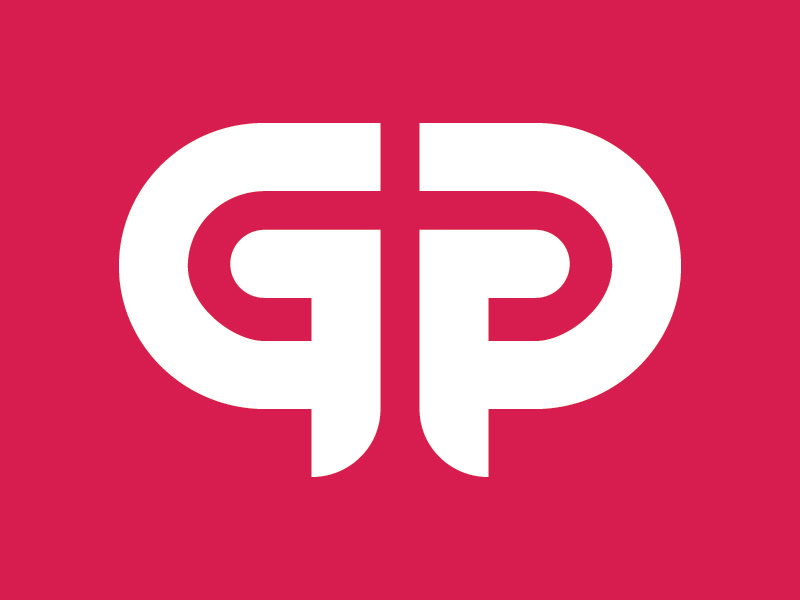
I’m not going to look. I’m pretty sure it’s a custom-made logo, and it has flaws that would (or should) not appear in a finished font, e.g., the concentric curves are not parallel and do not join perfectly smoothly with the bottom horizontal strokes.